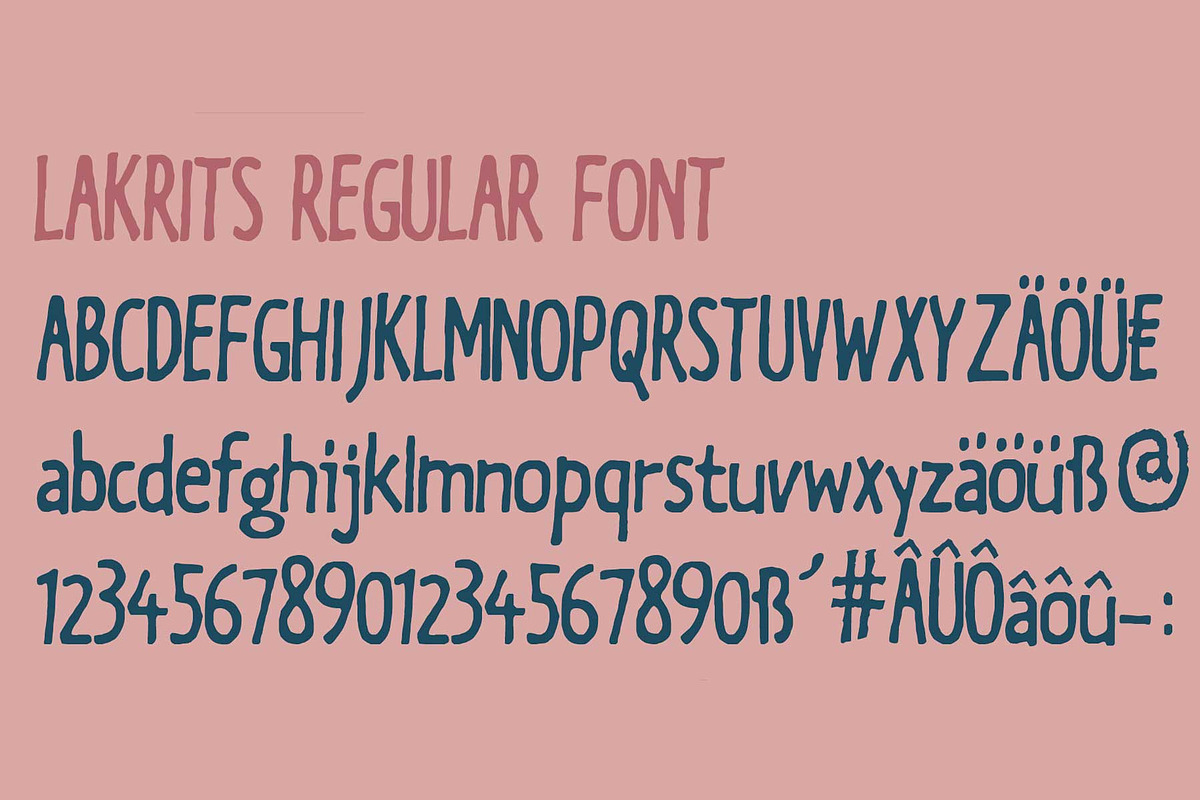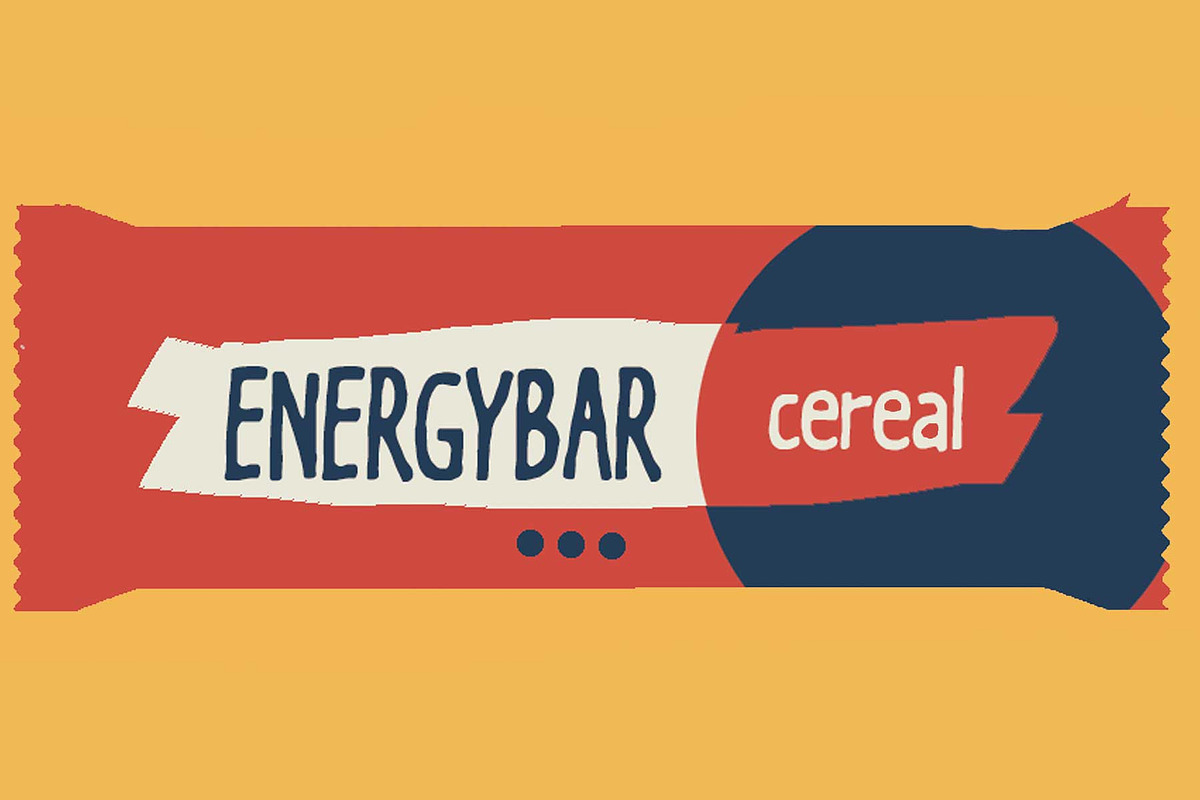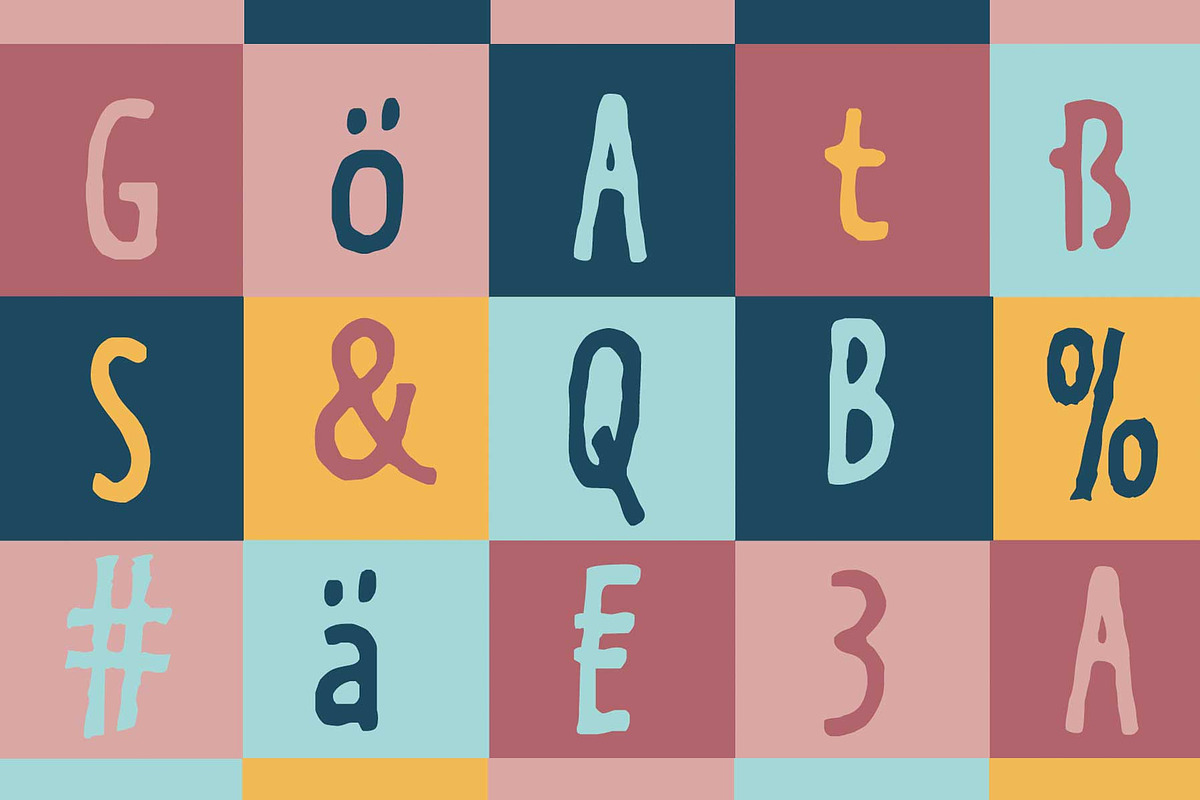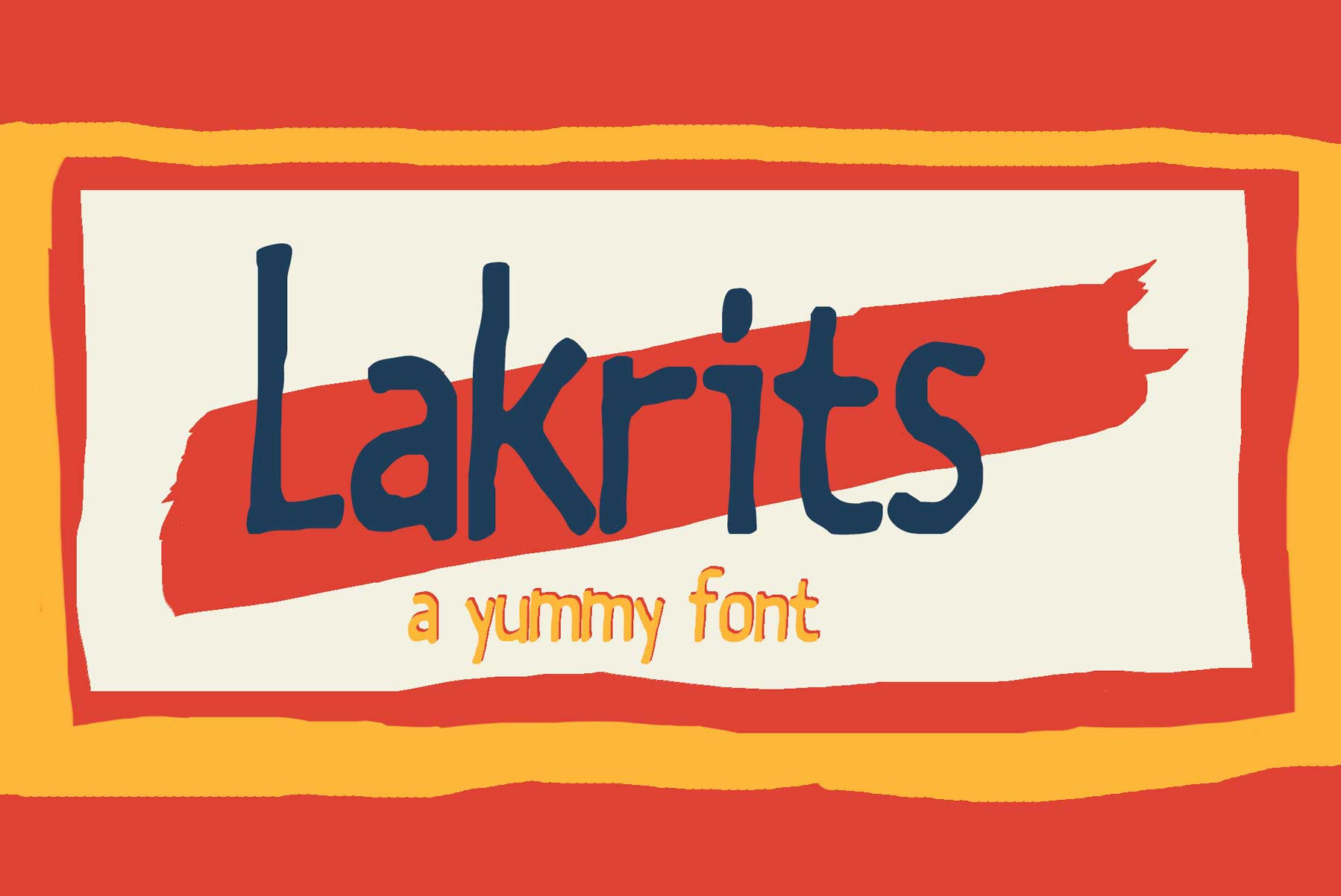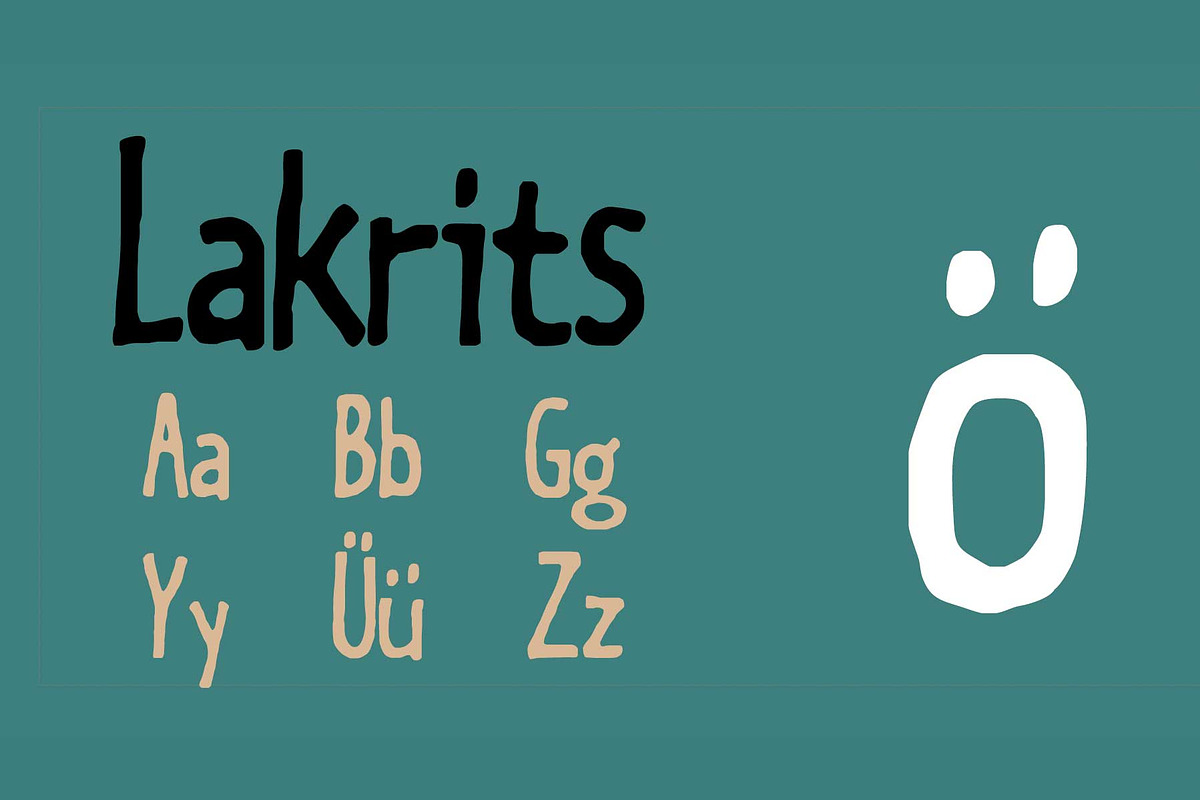
Lakrits - a handmade font
A handwritten font. So perfect for you who needs a typeface for logo designs, magazine, social media, brochure, invitation, posters, and many more.